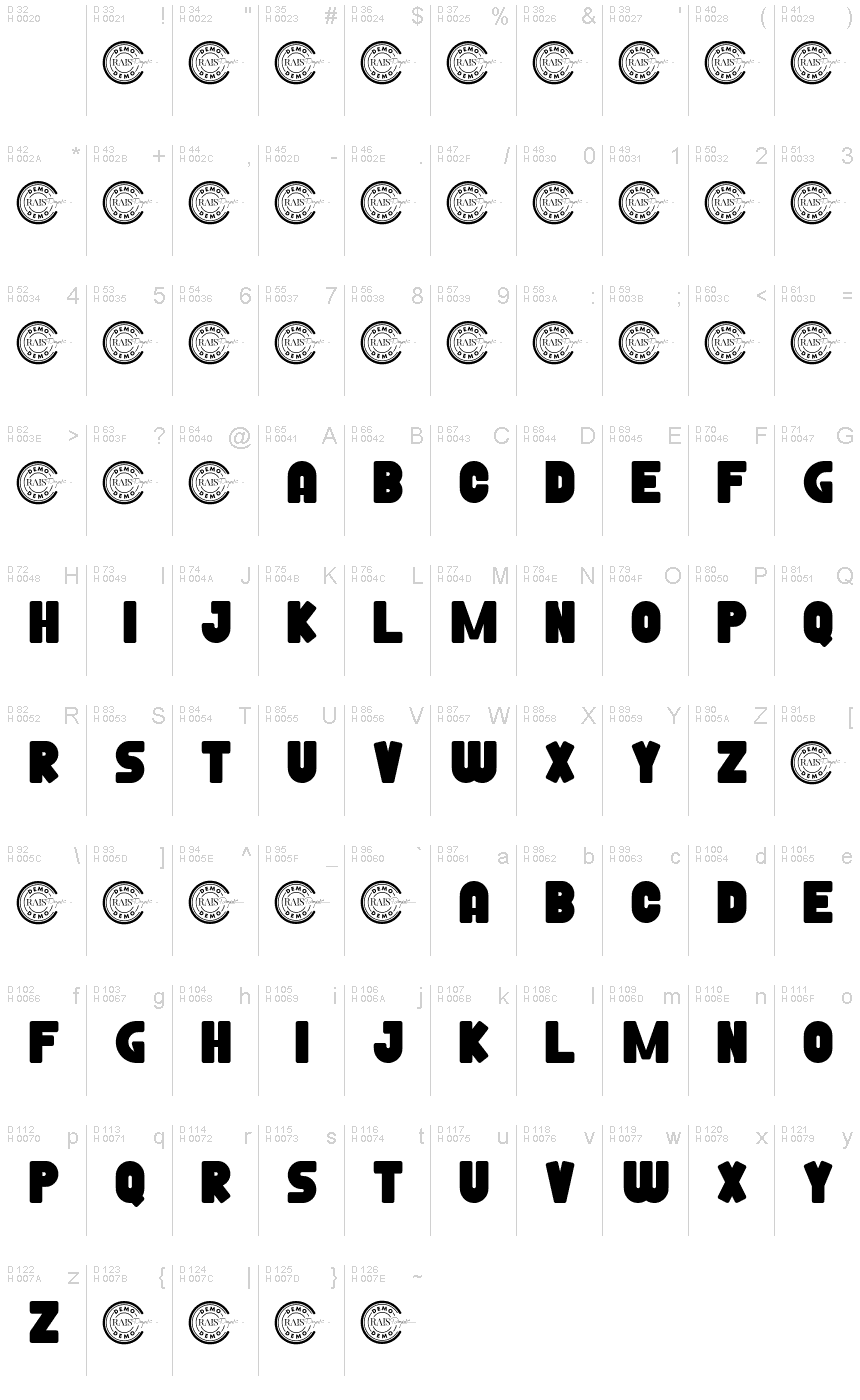
Fullday Demo
Fullday, crafted by RaisProject, is not just a font; it's a bold statement in retro typography. Its extra-bold character and playful cartoon style make it an irresistible choice for designers seeking to inject personality and vibrancy into their creative endeavors. With Fullday, you get more than just a typeface—you gain access to a versatile toolkit with three distinct styles: Regular, Semi Bold, and Bold.
This display font is perfectly poised to capture the imagination across various platforms—from eye-catching brochures and captivating covers to stunning posters and unique product packaging. Ideal for crafting invitations that stand out or creating signage that commands attention, Fullday ensures every word resonates with impact. Whether you're designing for print or digital mediums like websites and screen printing, this font promises to elevate your work with its unmistakable charm and retro flair.